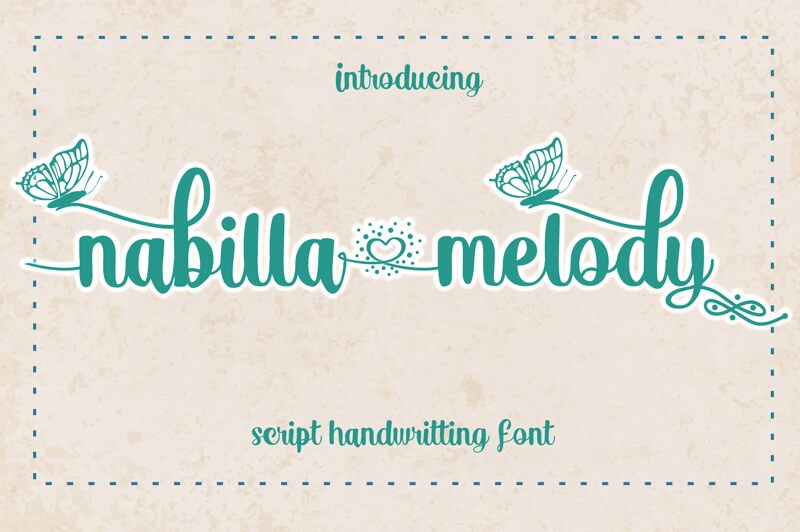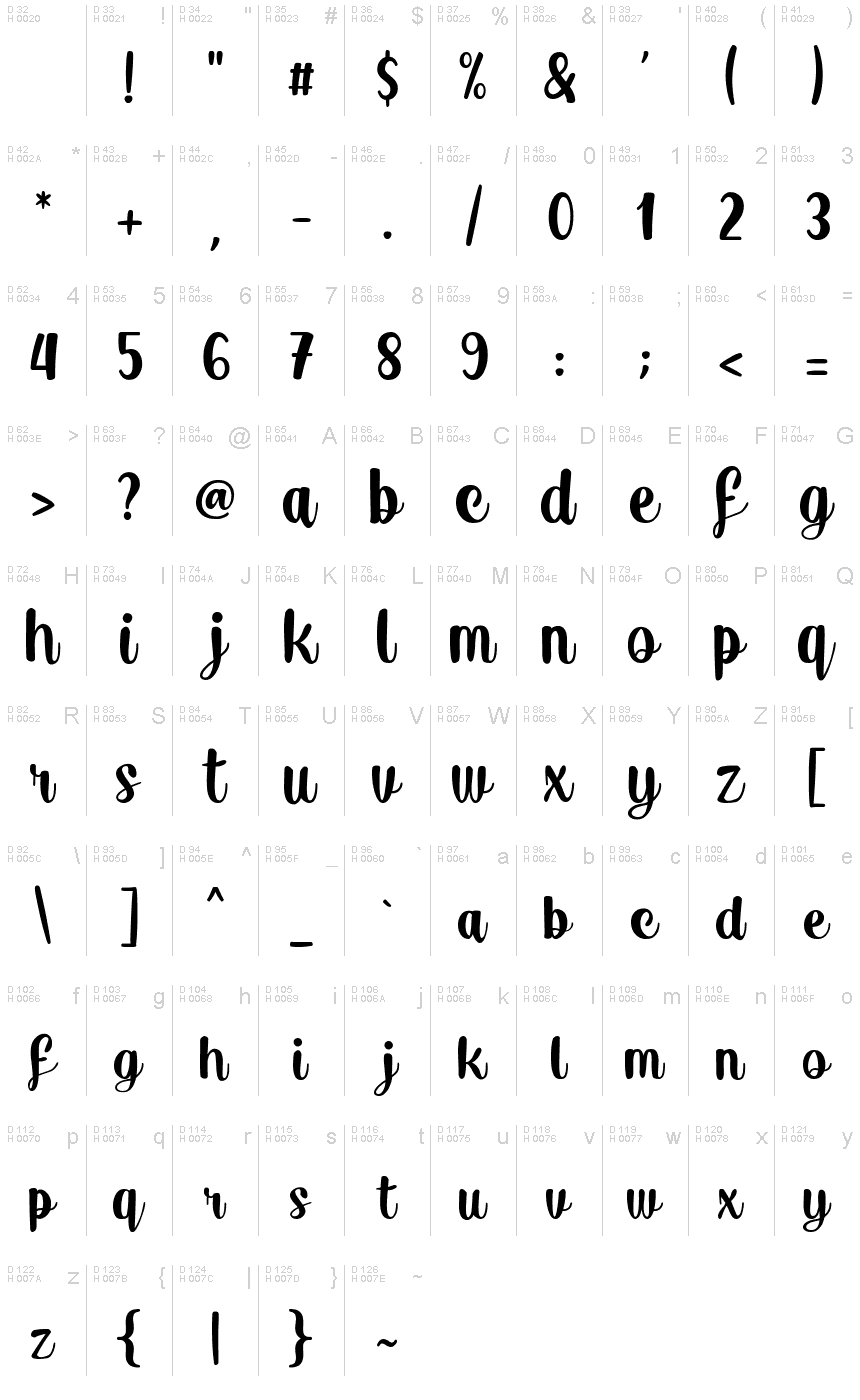
Nabilla Melody
Nabilla Melody, a bold handwritten script font created by BONGKENGart, is perfect for projects with a creative touch. Use this font to add an artistic flair to posters, invitations, greeting cards or anything that requires a unique style.